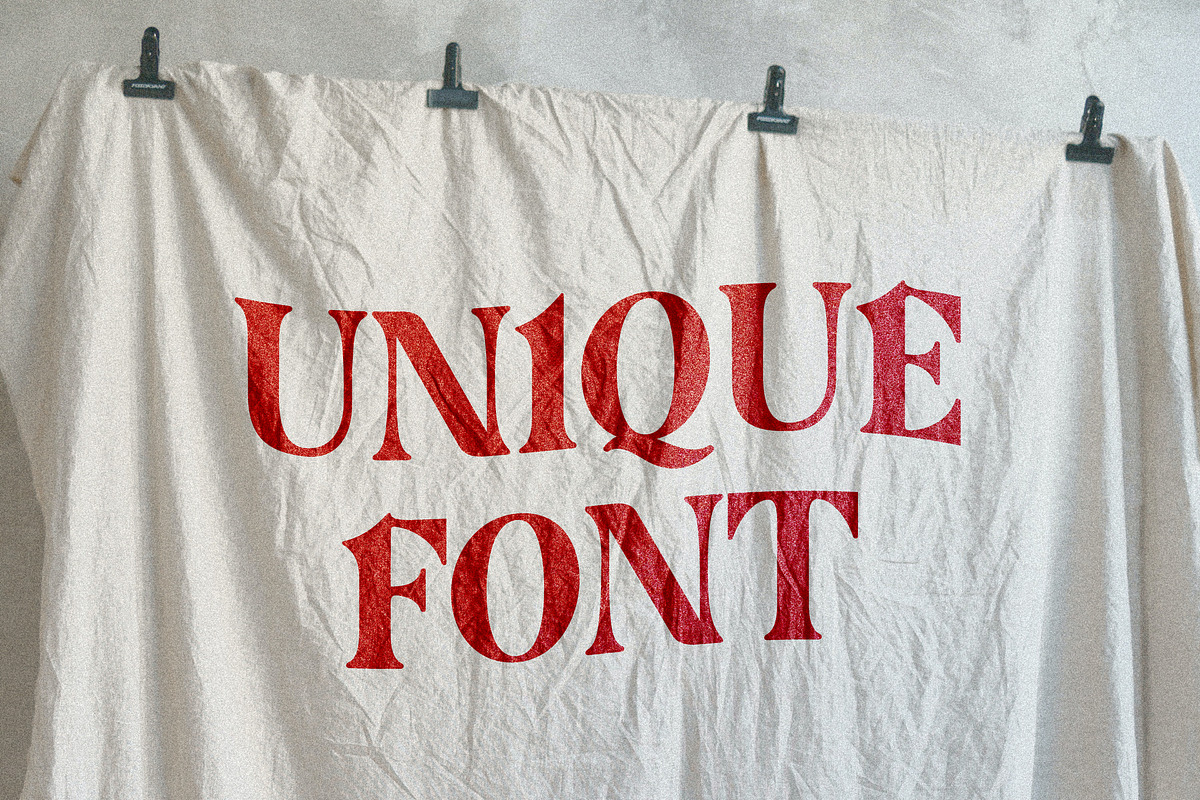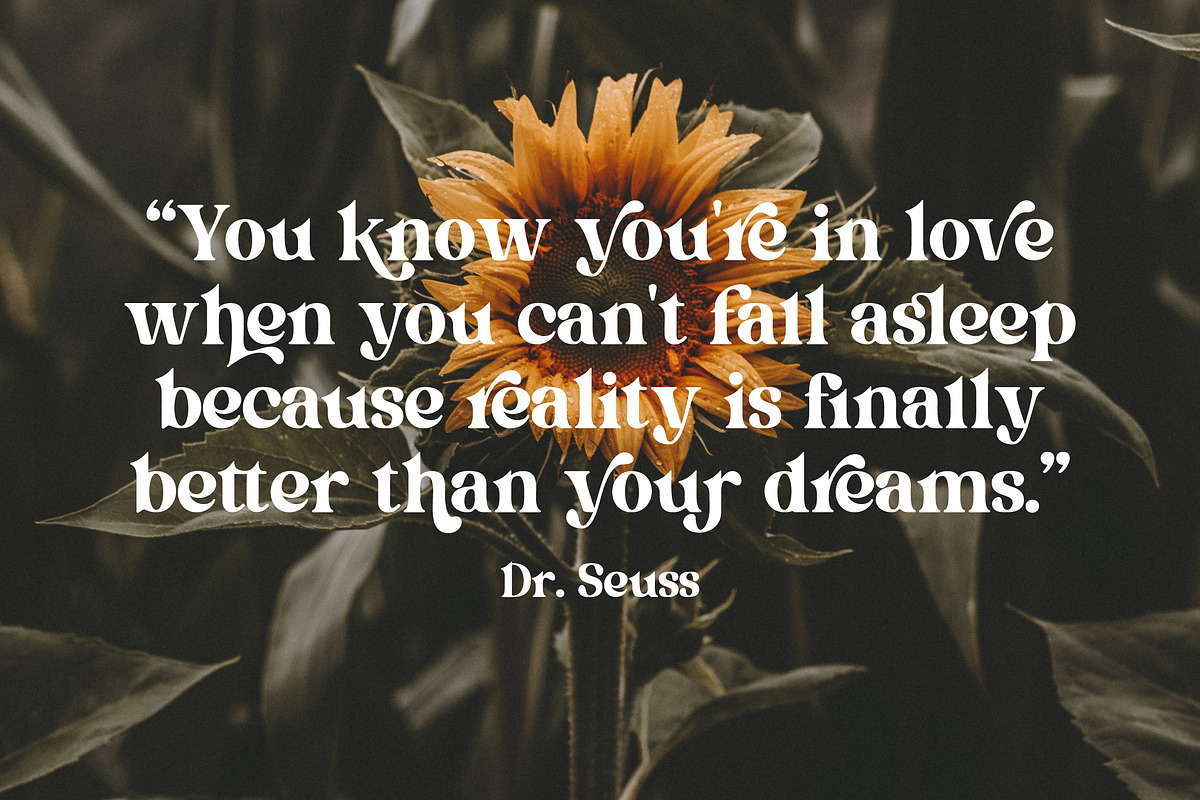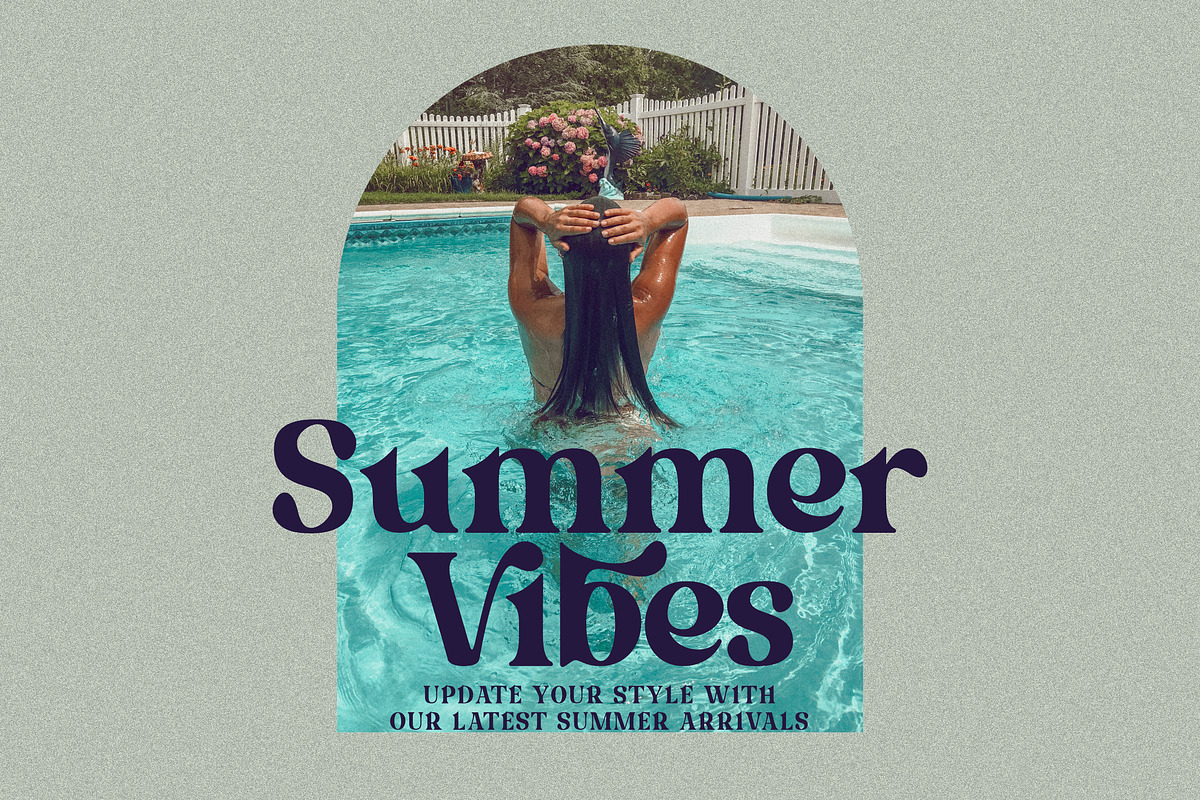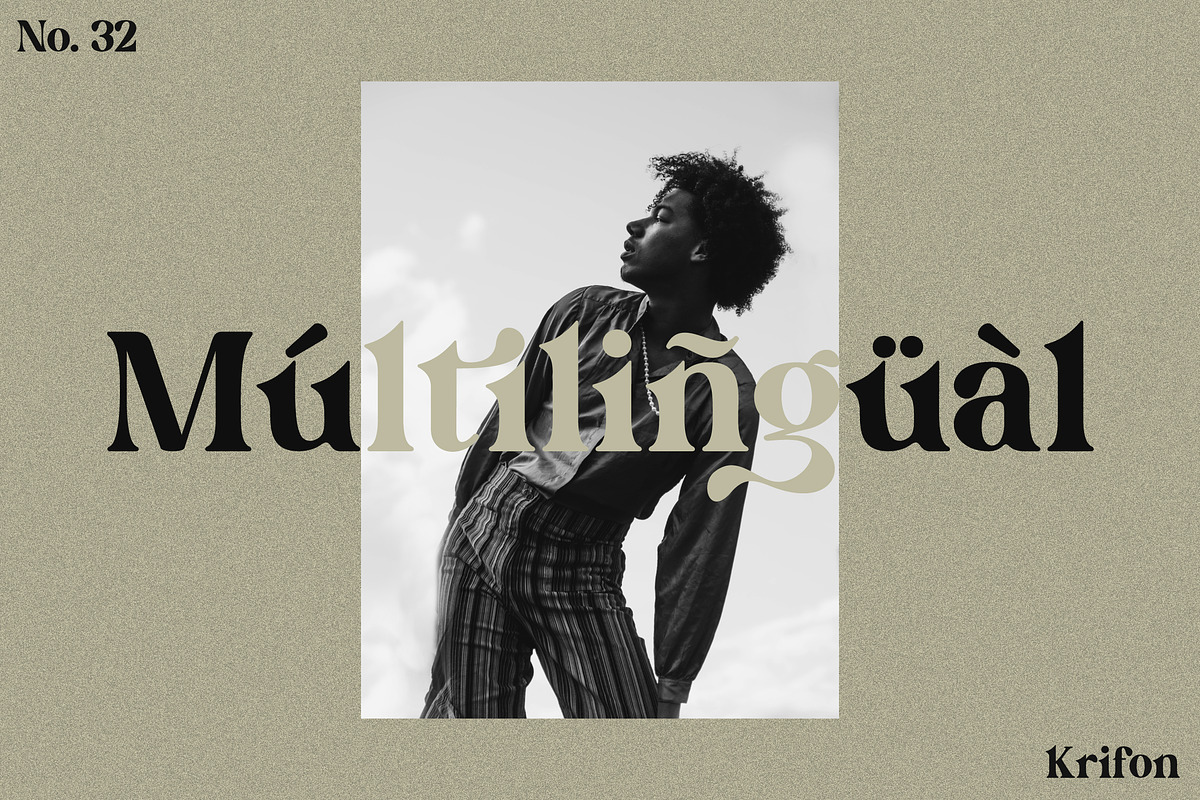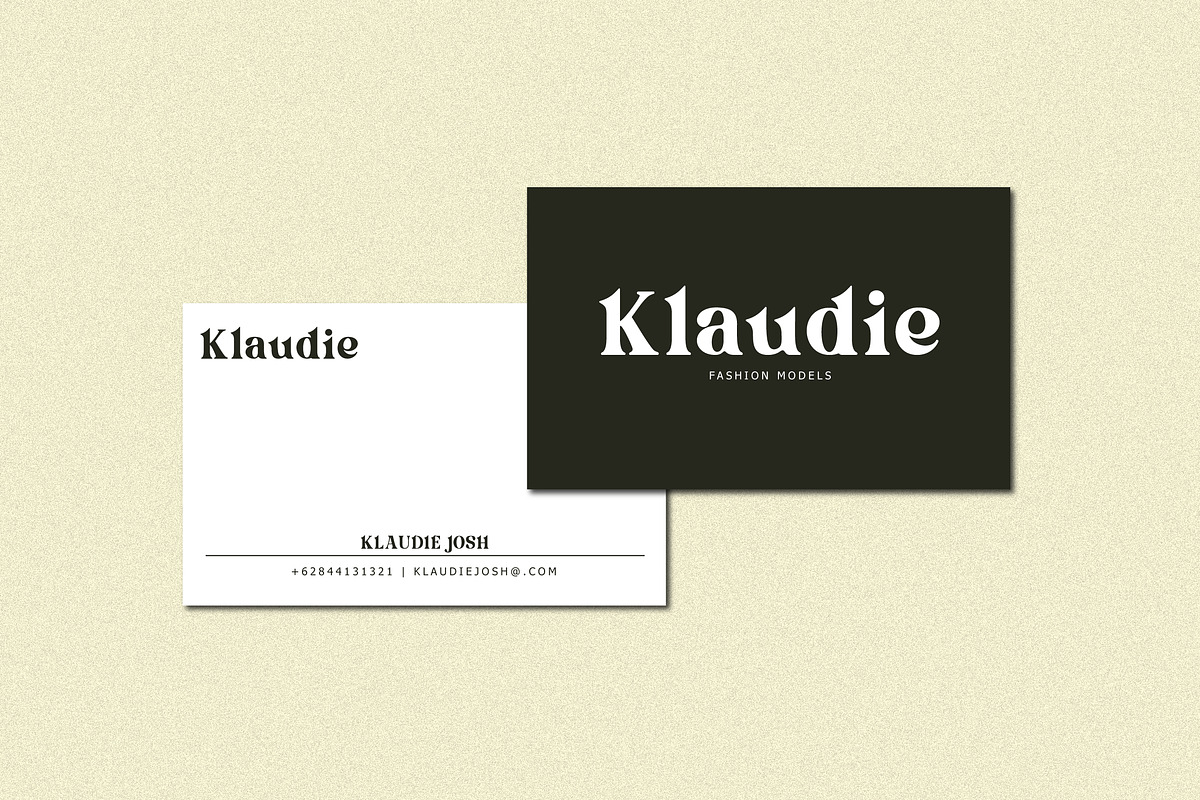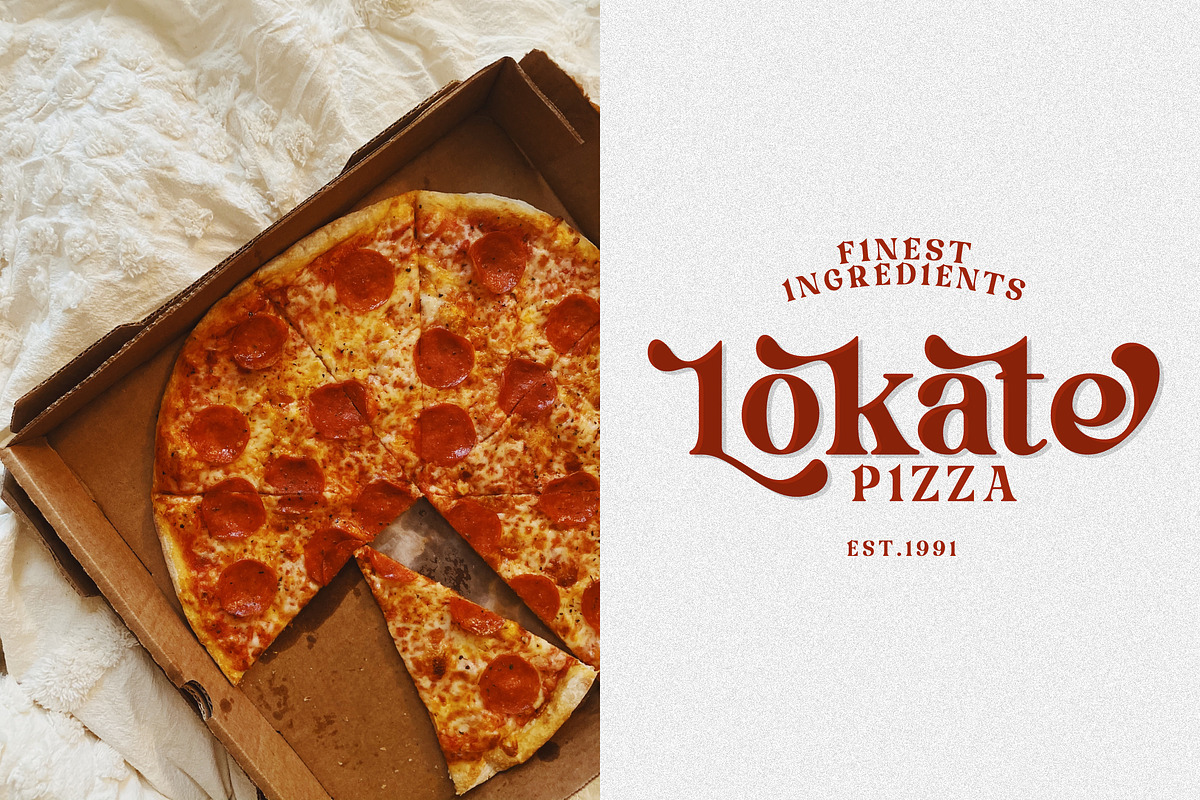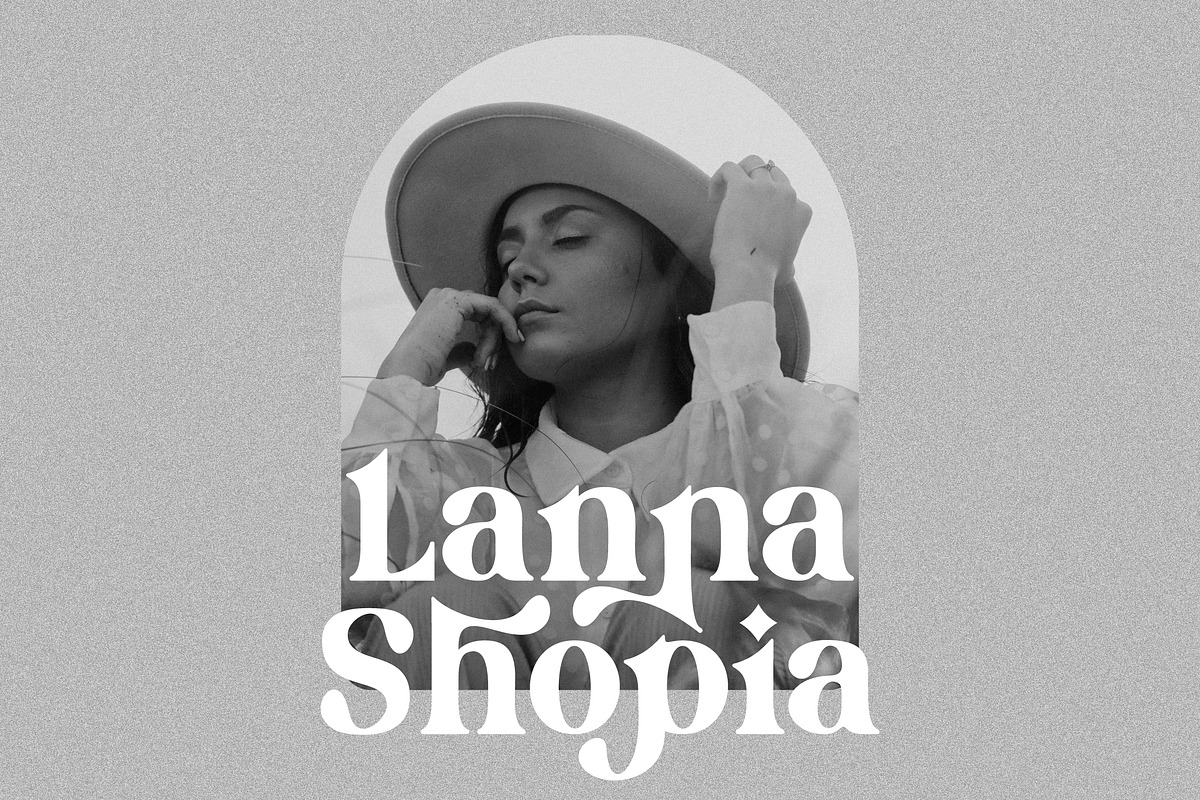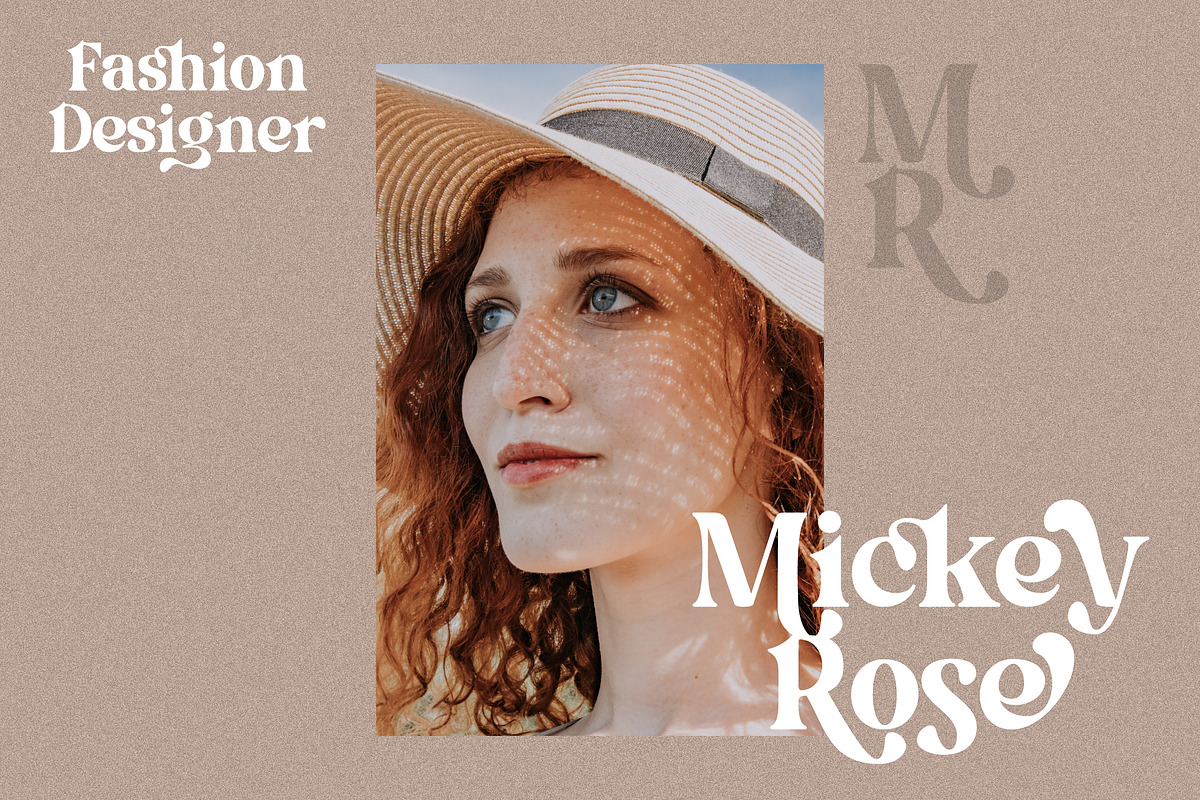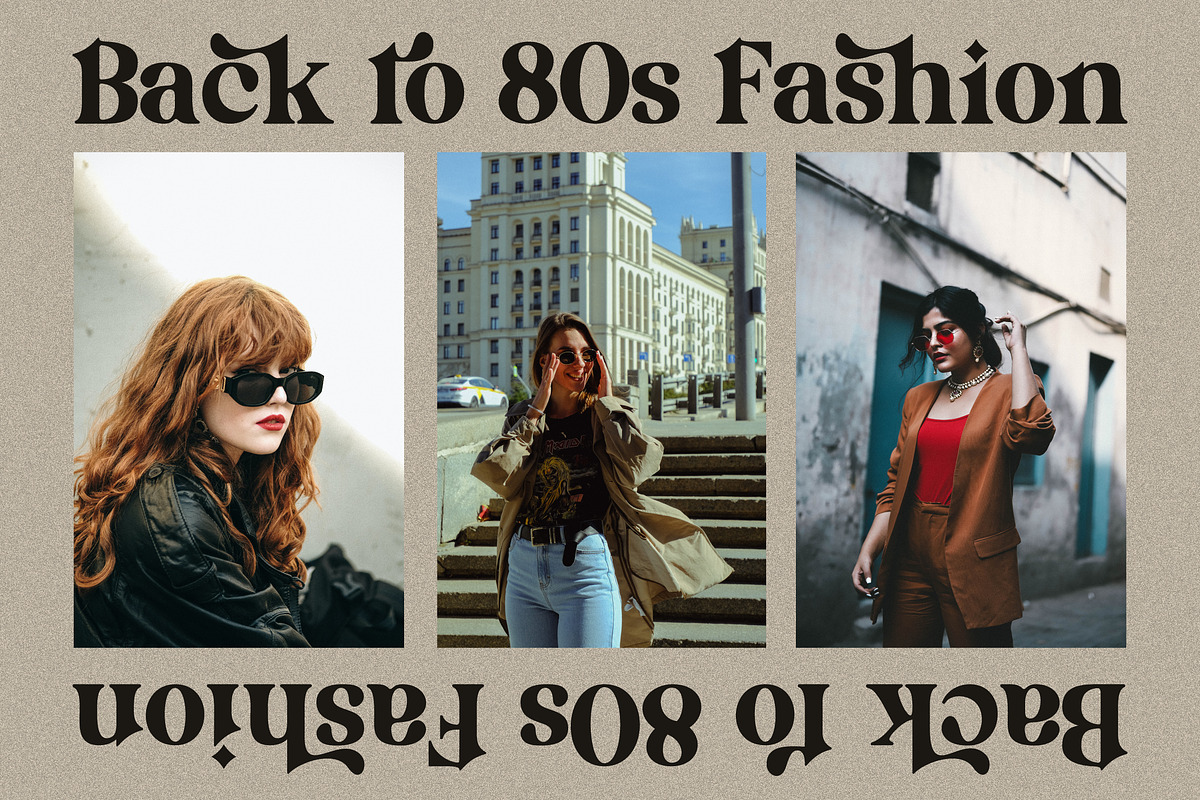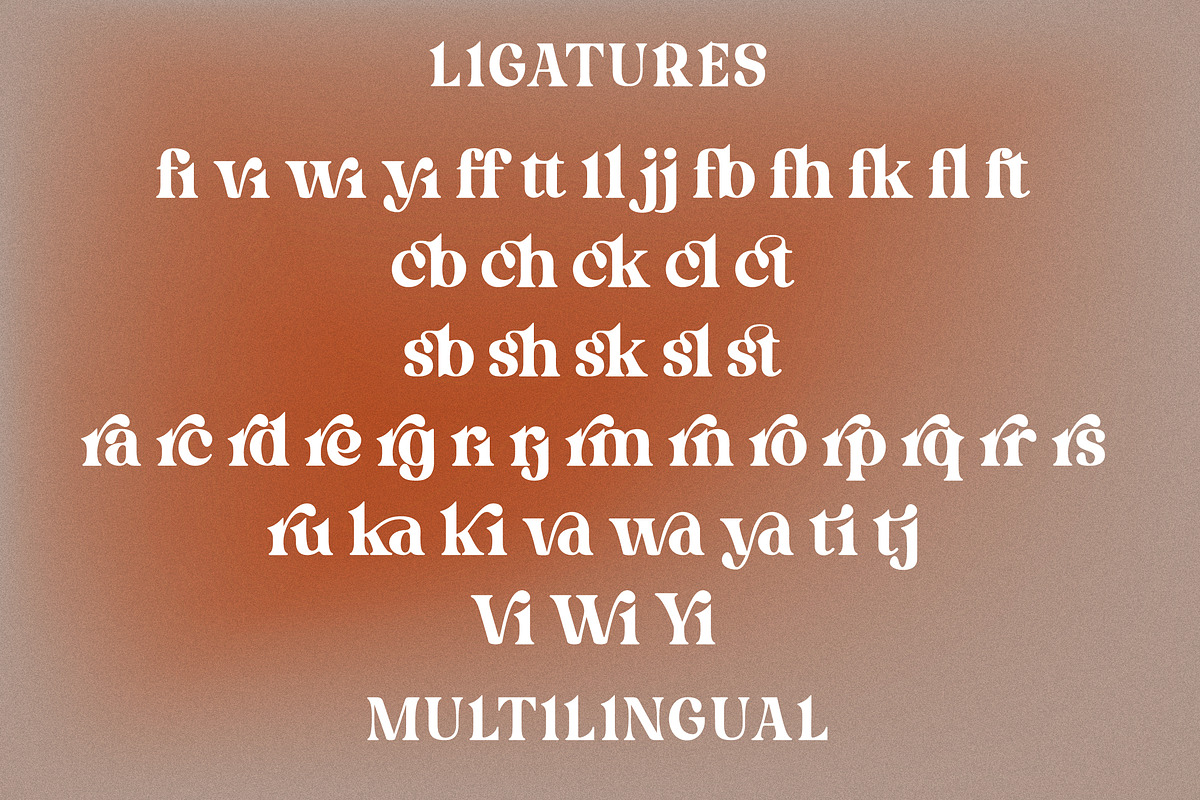
Krifon - Retro Serif Font
Krifon - Modern Bold Serif Font is a stylish font It has both modern and retro look. Comes with alternatives and ligatures, helps to create stunning logos, quotes, posts, blog posts. branding projects, magazine imagery, wedding invitations, and much more.
- Unique Letterforms